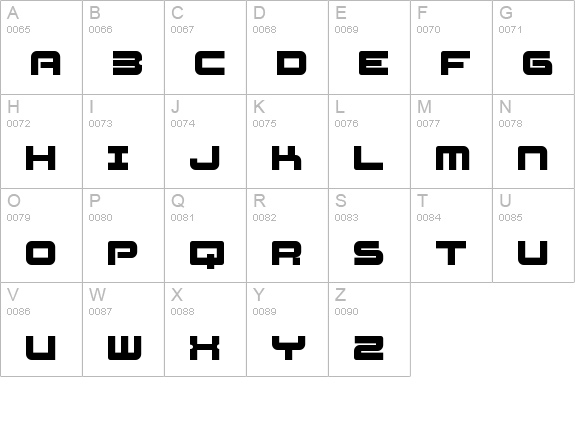
Fatsans Font Details
Fatsans font is a modern and sleek typeface that exudes confidence and style. With its bold and distinctive letterforms, Fatsans is perfect for making a statement in your designs. This versatile font is ideal for headlines, posters, logos, and other display purposes. Its clean lines and sharp angles give it a contemporary edge that will surely catch the eye. What makes Fatsans even more appealing is that it is available for free download at FontsMarket.com. This means you can easily add this striking font to your collection without any cost. Don't miss out on the opportunity to enhance your projects with the bold and impactful Fatsans font. Download it now and let your creativity shine!